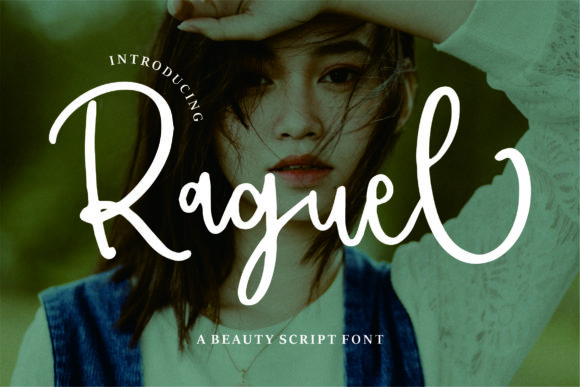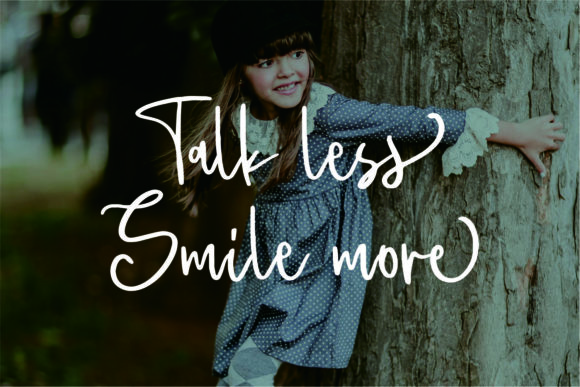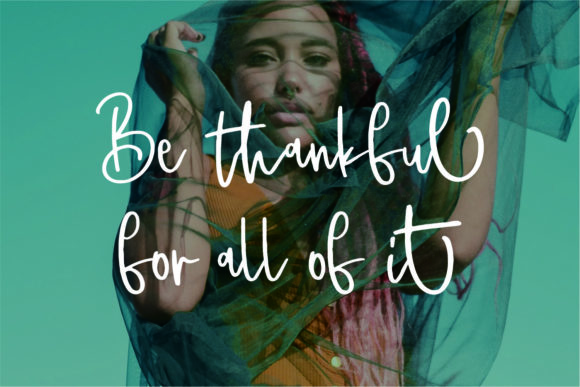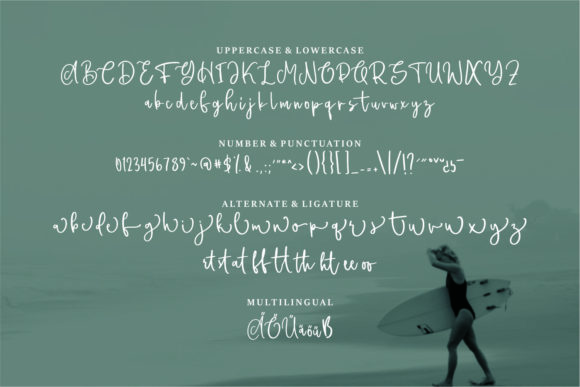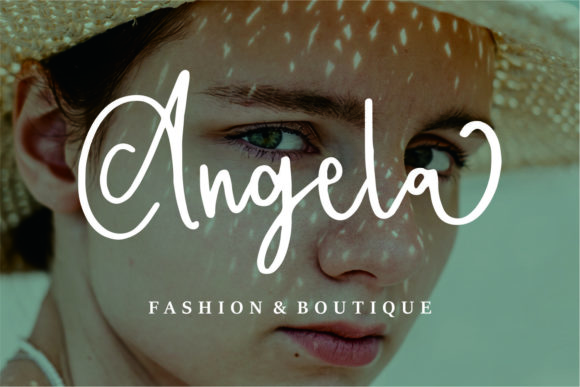
Raguel Font
About Raguel Font
“Raguel” is a refined and enchanting script font that radiates an air of elegance and sophistication. Crafted with meticulous attention to detail, this font is tailored to bring a touch of timeless beauty and a sense of sophistication to your design projects.
The delicate letterforms of “Raguel” exude a graceful charm, making it an ideal choice for projects that demand a hint of class and refinement. Whether you’re designing wedding invitations, greeting cards, logos, or any other visual content, this font has the ability to elevate your creations and infuse them with a sense of elevated aesthetics.
One of the standout features of “Raguel” is its PUA encoding, which grants you easy access to its vast array of glyphs and swashes. This means you have the creative freedom to customize and personalize your designs to perfection, adding unique touches that resonate with your vision.
The versatility of “Raguel” shines through in its ability to adapt to various contexts. From formal to whimsical, from traditional to contemporary, this font can seamlessly blend in while adding a touch of sophistication that captures attention.
“Raguel” is more than just a font; it’s a powerful tool that empowers you to transform your creative concepts into stunning visuals. With its elegant demeanor and graceful allure, it stands as a symbol of refined aesthetics and serves as an invaluable asset for designers seeking to make a lasting impact.
As you explore the capabilities of “Raguel,” you’ll find that it has the capacity to infuse your designs with a sense of timeless elegance, ensuring that they stand out and leave a memorable impression. This font is a testament to beauty and class, making it a welcomed addition to any designer’s toolkit.